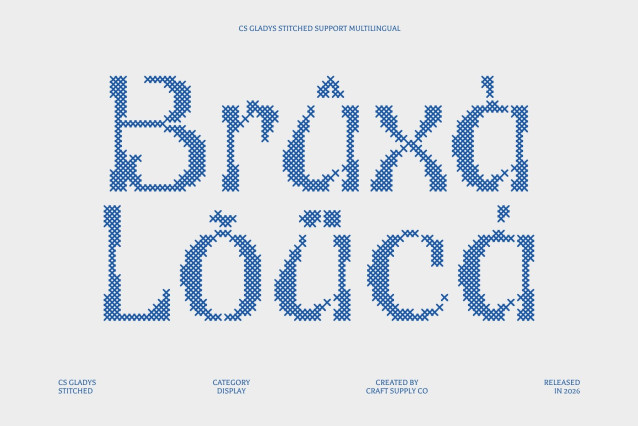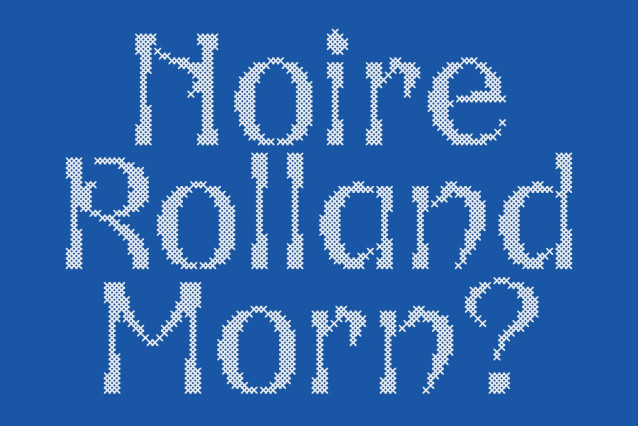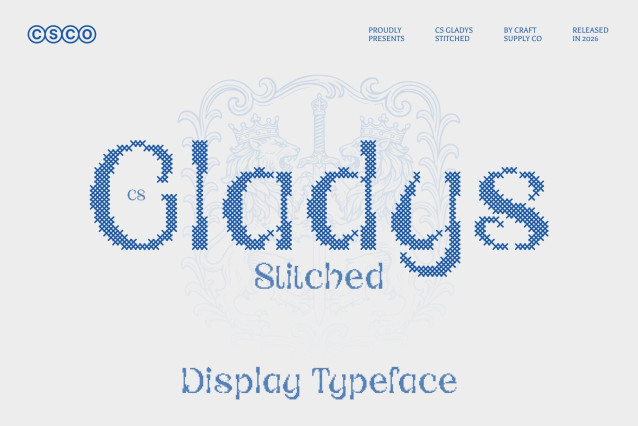
CS Gladys Stitched Font
CS Gladys Stitched – Reverse Contrast Font: Intriguing and Distinctive Display Typeface
Unusual Contrast with Handcrafted Texture
This is a display font featuring reverse contrast and a charming stitched texture that mimics embroidered thread. Its unconventional interplay of thick and thin strokes gives each letter a distinctive personality, while the cross-stitch pattern adds warmth, softness, and a handcrafted appeal.
Bold and Eye-Catching Character
The reverse contrast structure creates a striking visual rhythm that immediately draws attention. Combined with the stitched detailing, the font delivers a bold yet approachable look that blends retro charm with modern creativity, making every headline feel unique and expressive.
Designed to Emphasize Individuality
Perfect for posters, branding, packaging, and editorial layouts, this font thrives in projects that celebrate originality. Its unexpected contrast and textured finish add depth and personality, ensuring designs feel memorable and visually engaging.